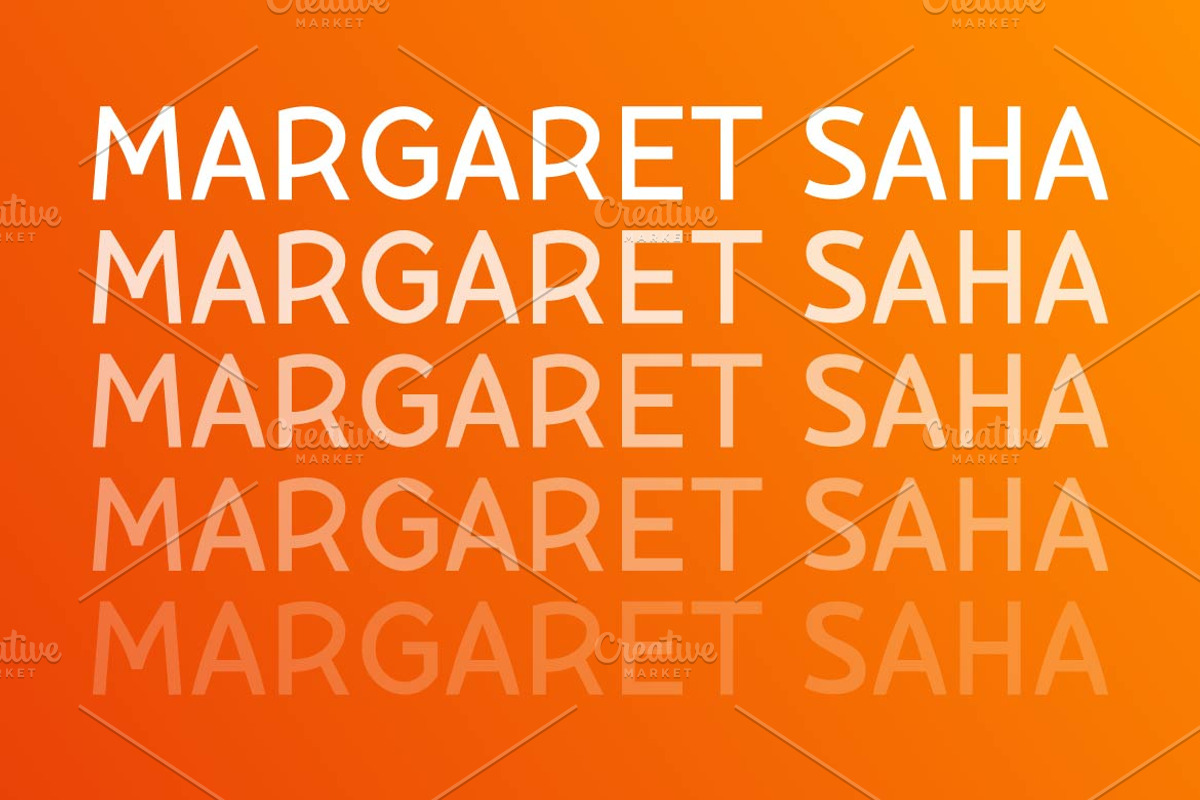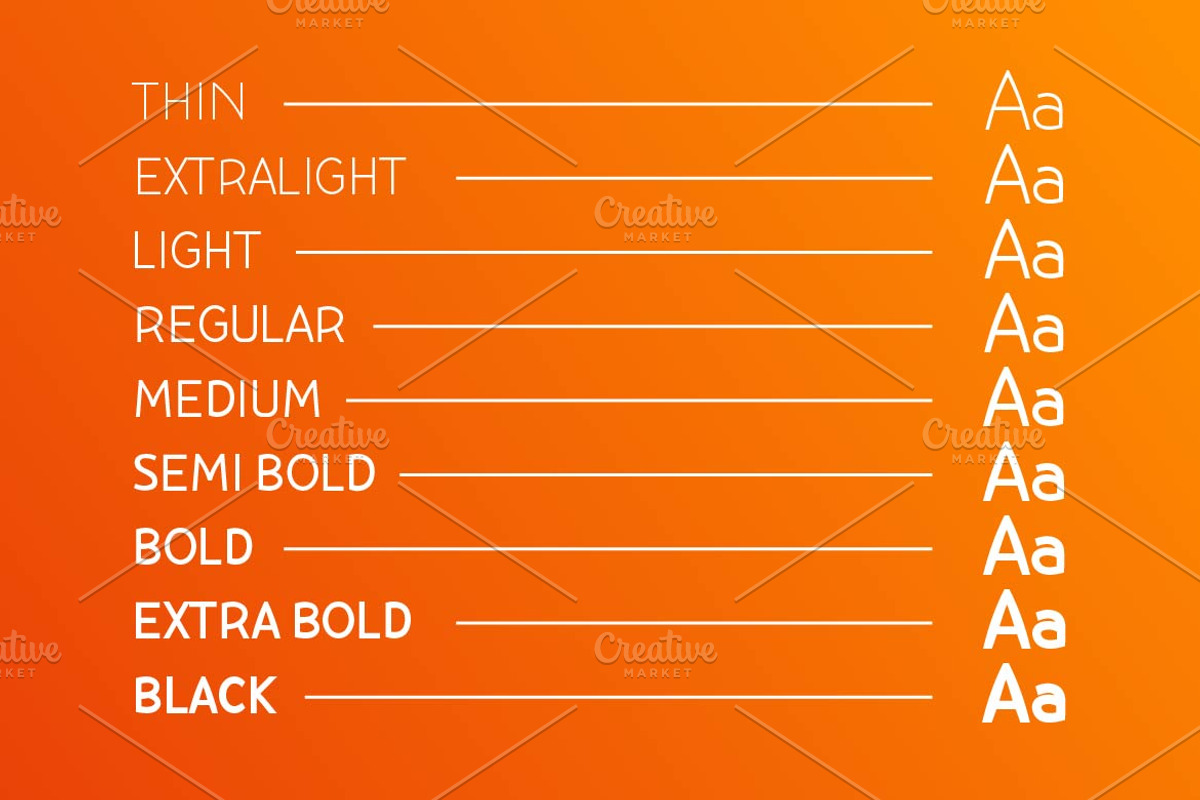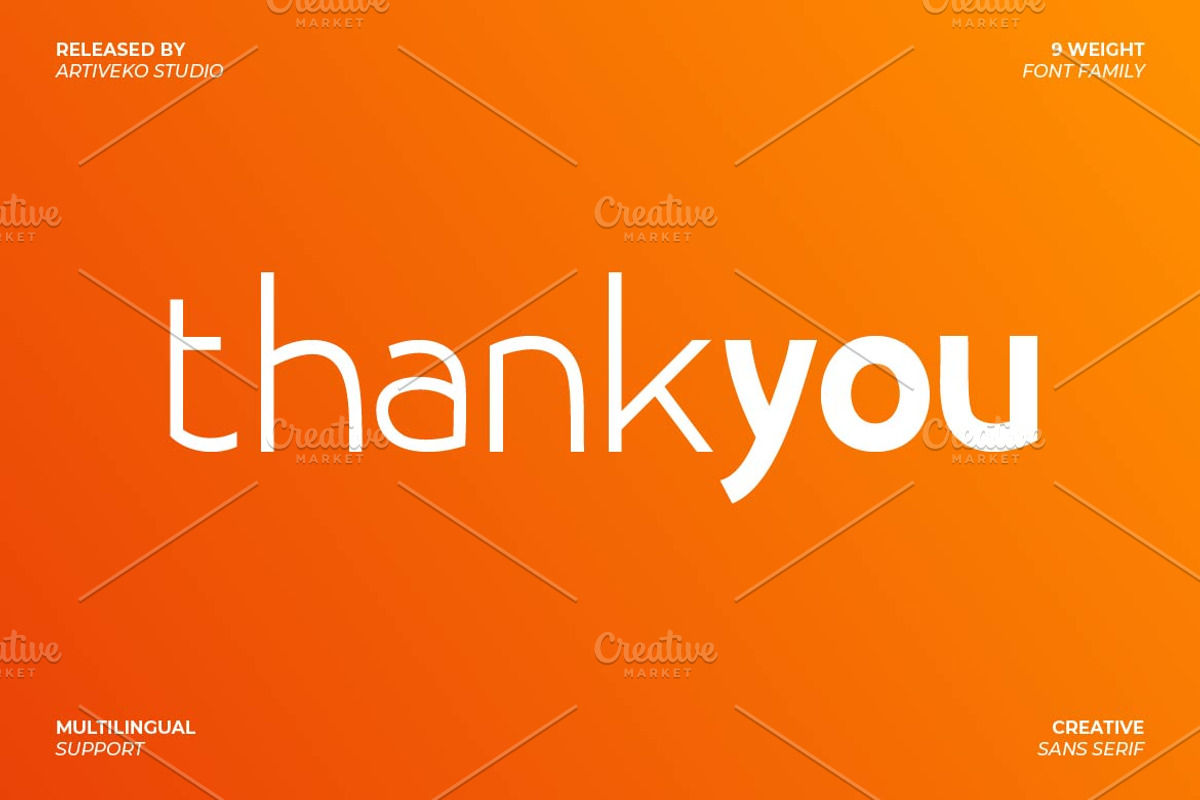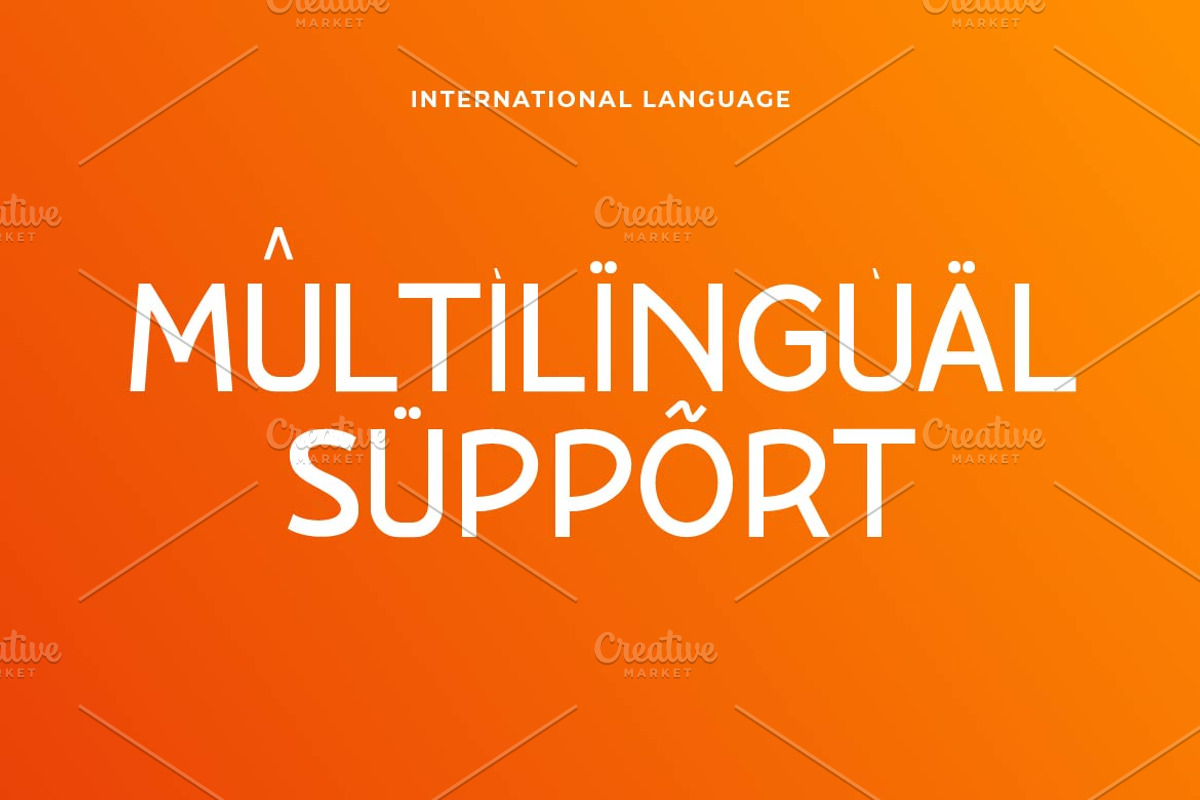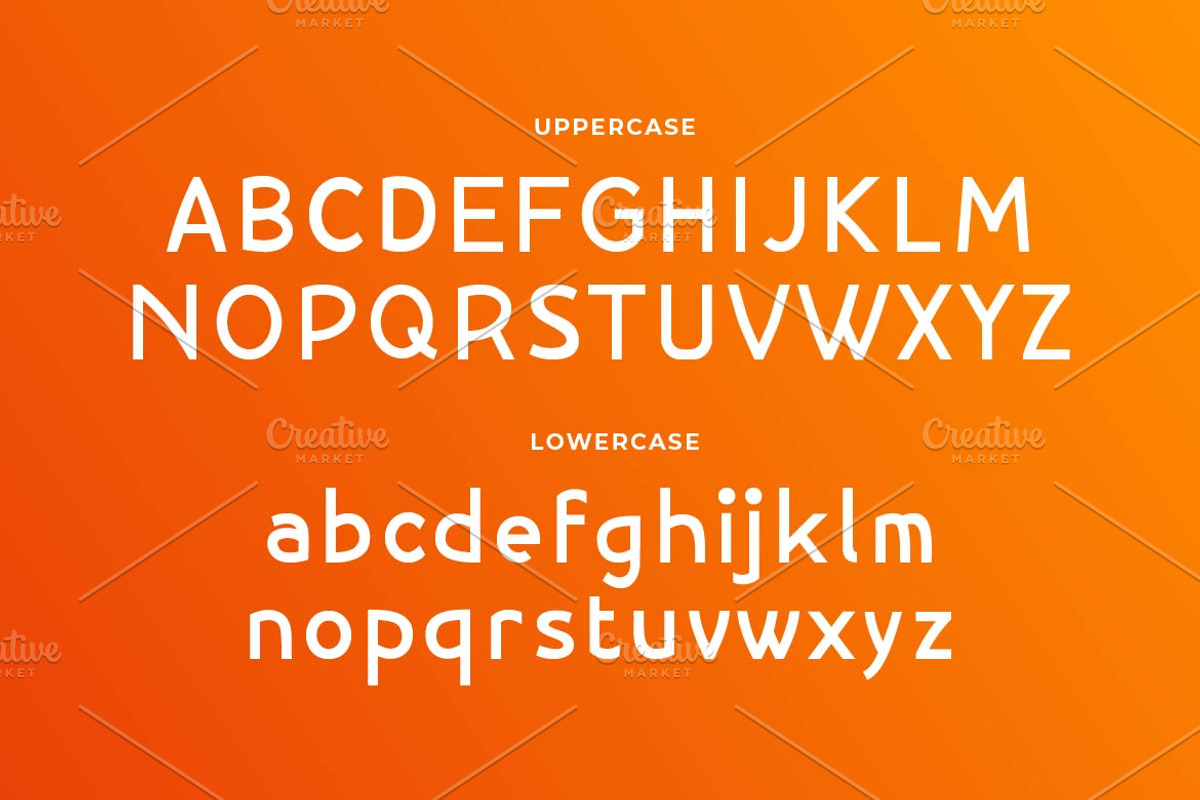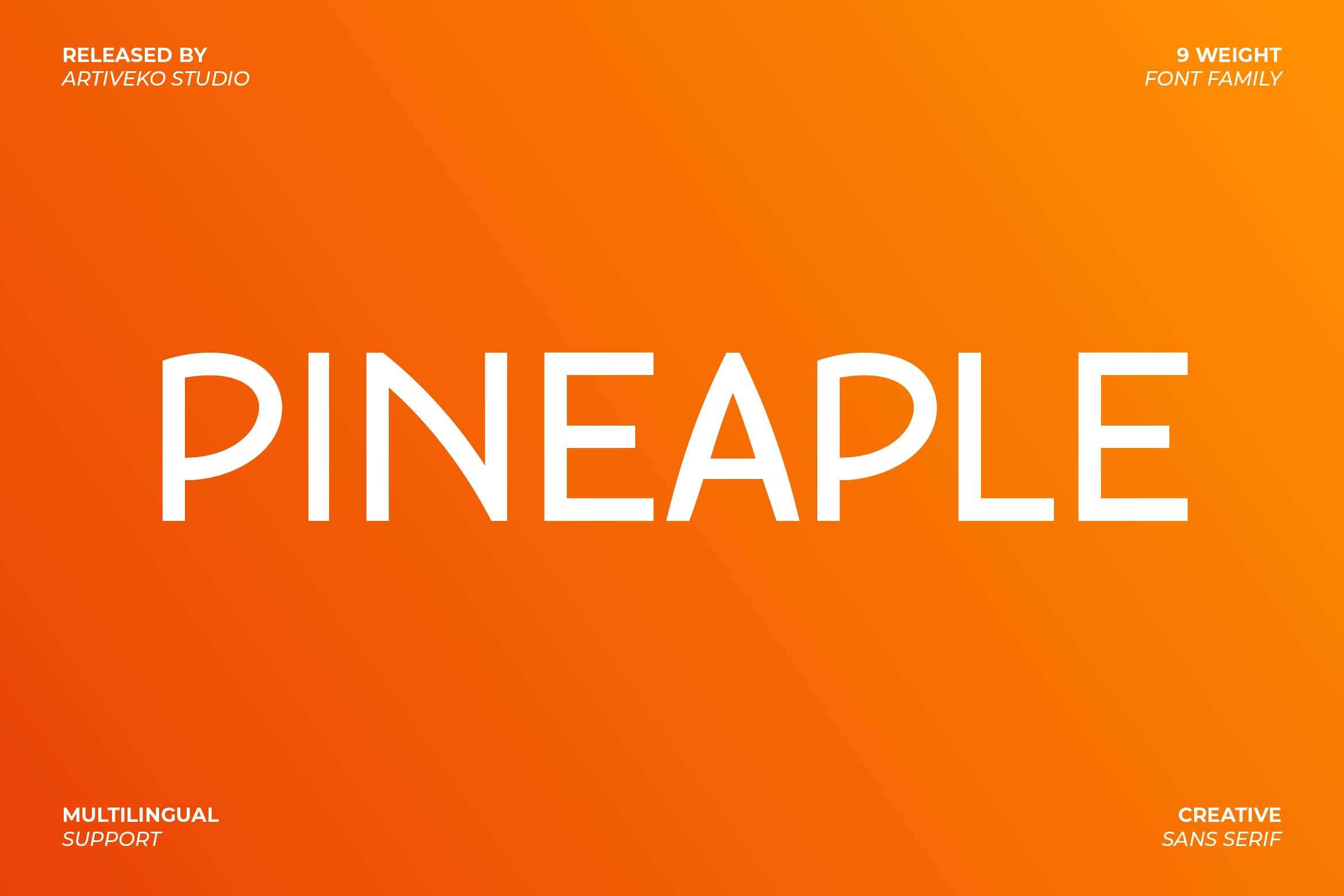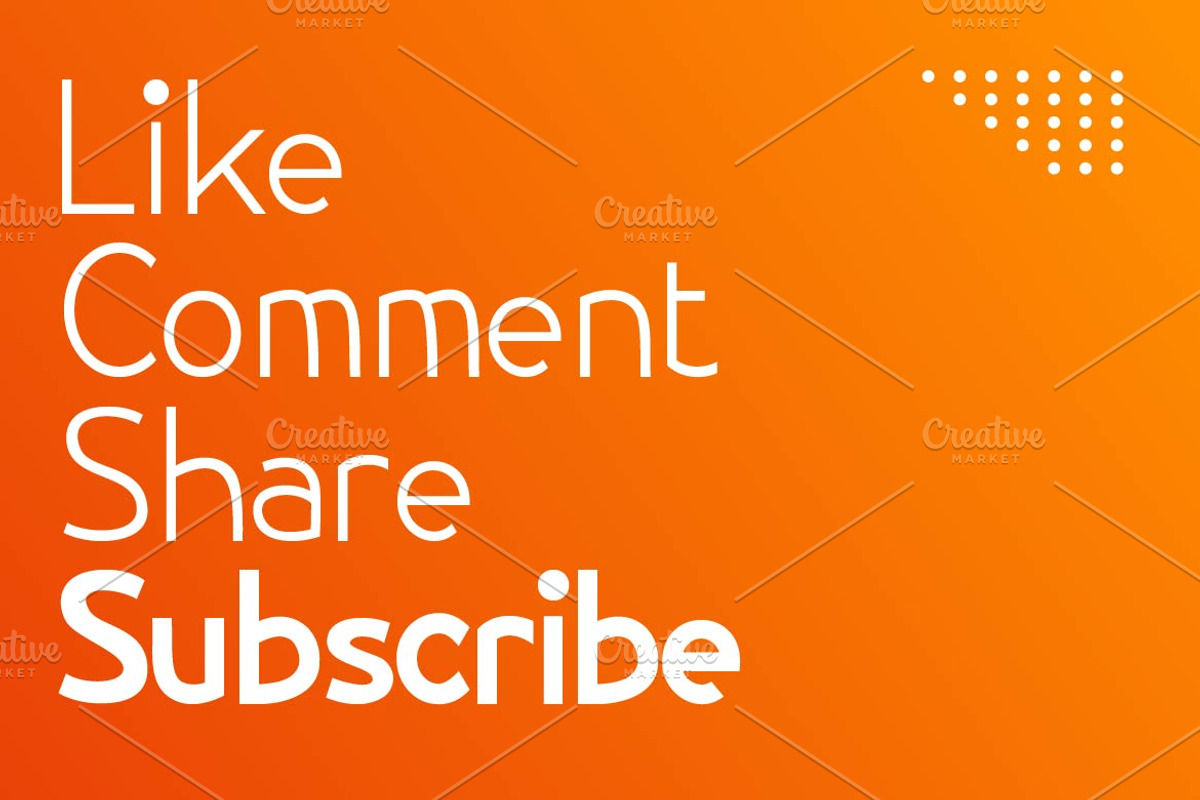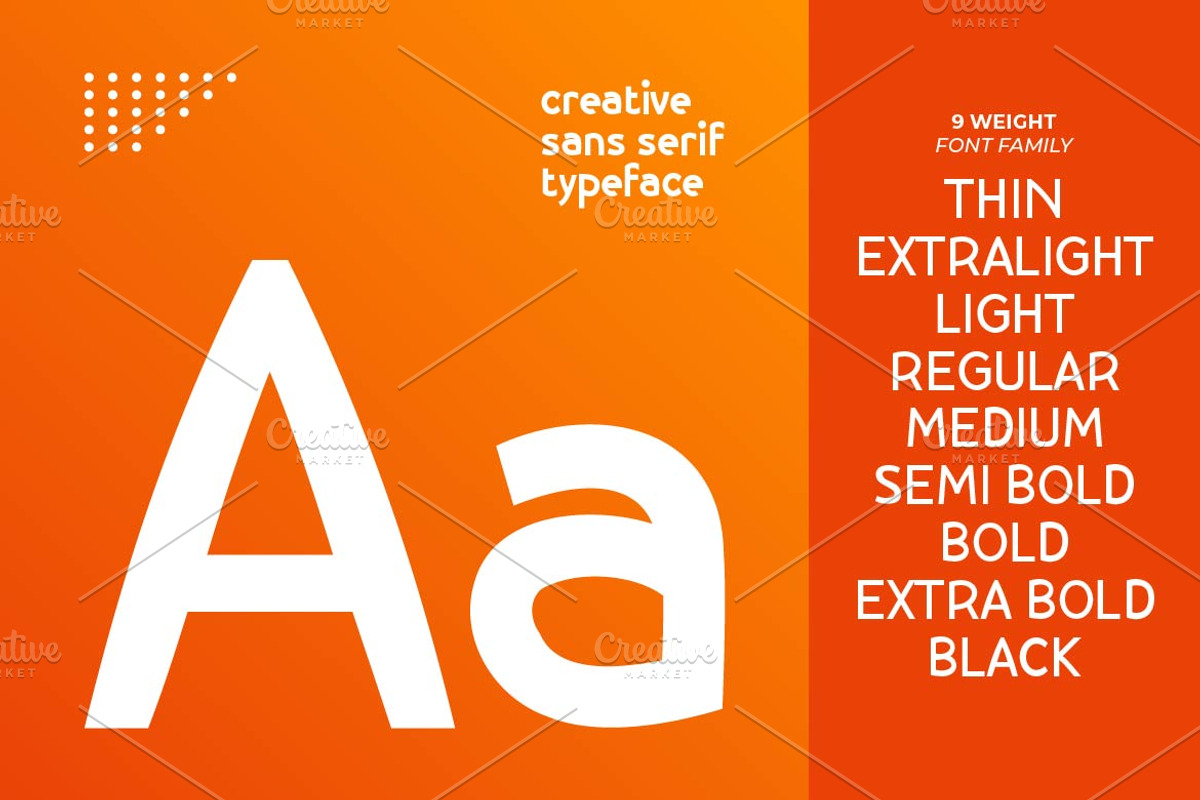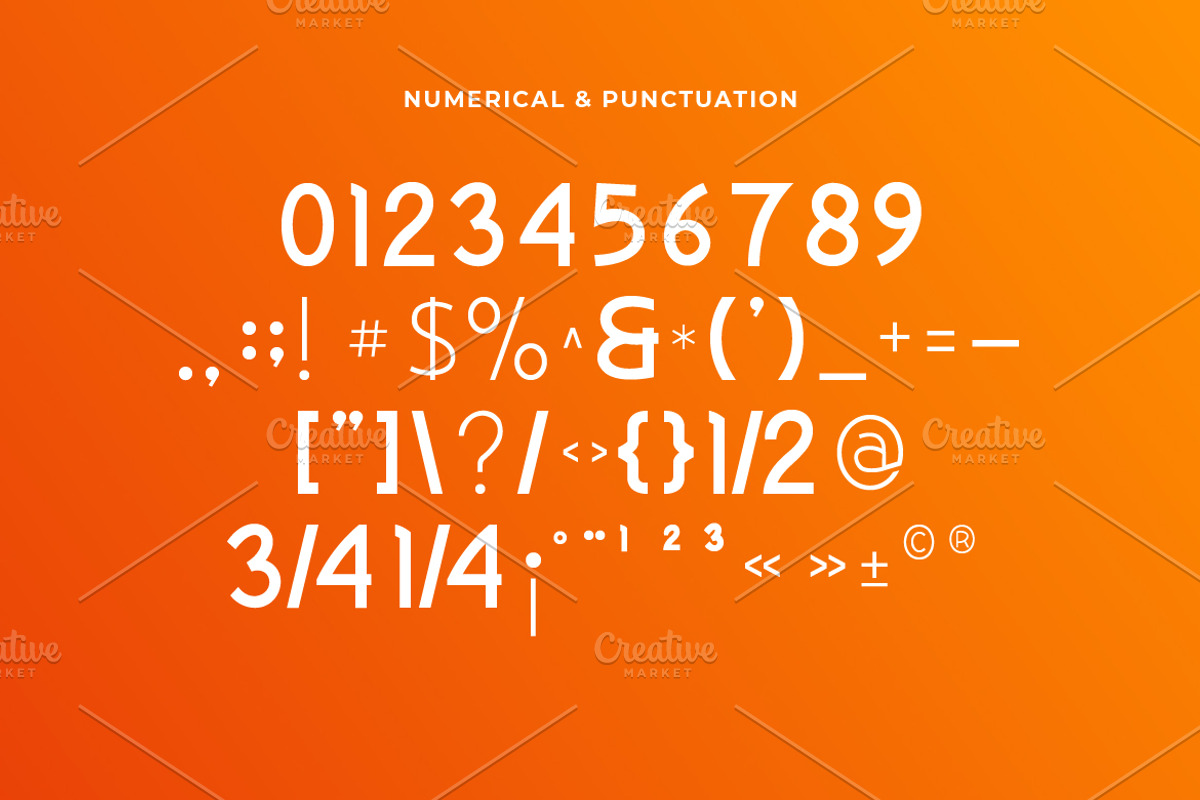
Pineaple Creative Sans Font
Pineaple is a creative sans serif font featuring playful yet modern letterforms that bring a fresh and dynamic touch to any design. Perfect for branding, packaging, social media, and editorial layouts, Pineaple blends uniqueness with versatility for a stylish and contemporary look. With multilingual support, ligatures, and alternates, this font adds a distinctive charm, making it an excellent choice for projects that seek creativity and originality.